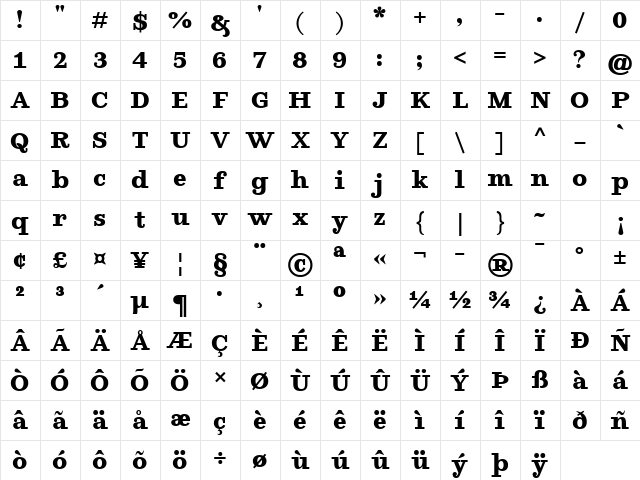
Ghostlight Bold
Foundry: J￿r￿mie Dupuis
Designer: J￿r￿mie Dupuis
Design Context for Ghostlight
Ghostlight is a composed and adaptable typeface that performs quietly and consistently across a wide range of design contexts. Its bold stroke weight gives it real presence on the page.